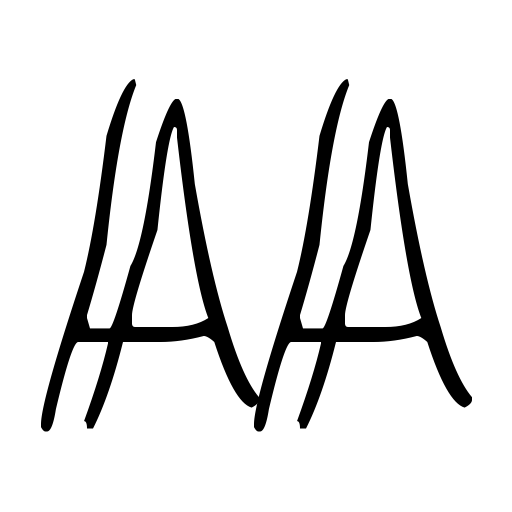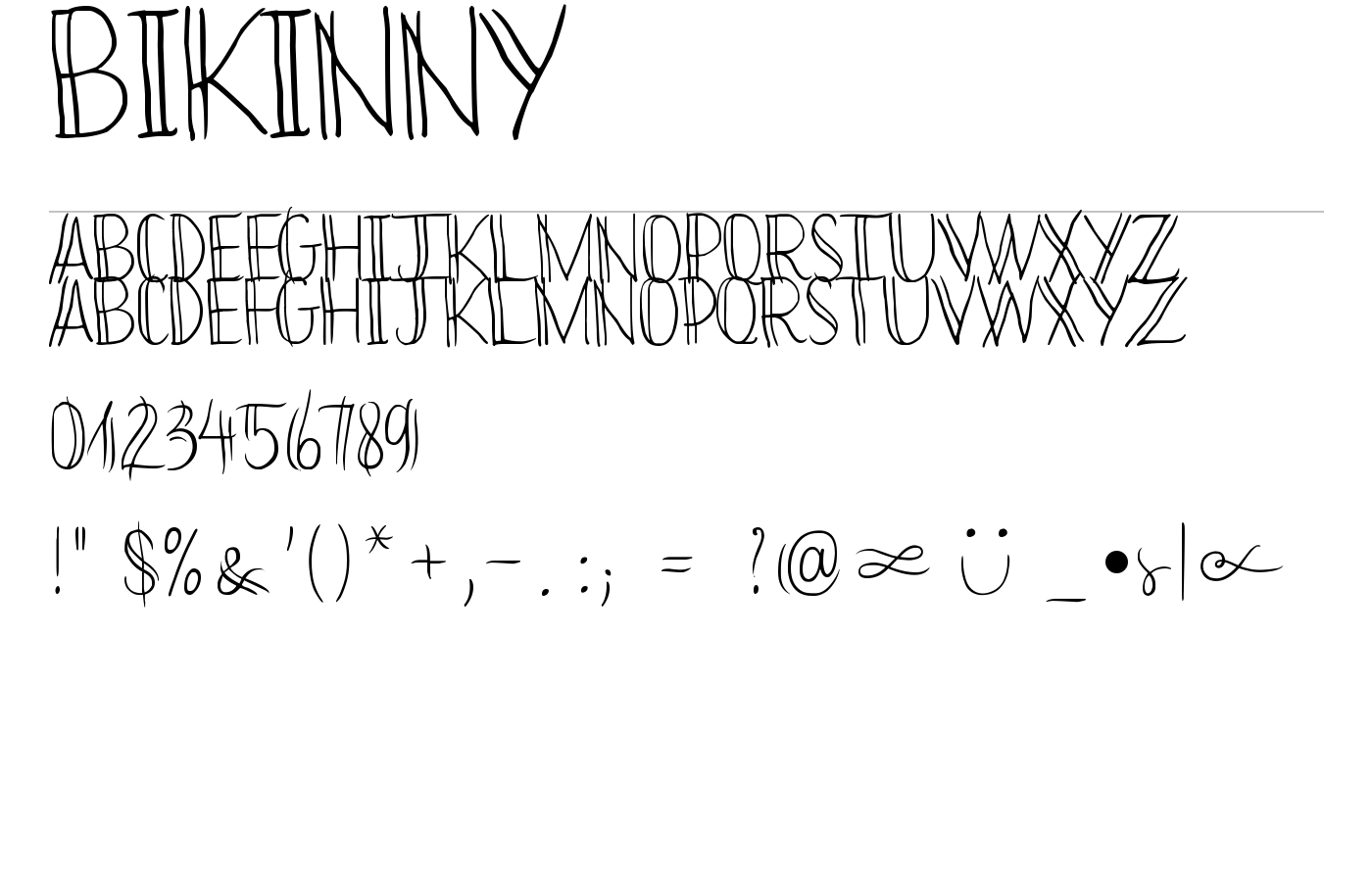
Bikinny is a quirky, hand-drawn sans serif font with a tall, narrow structure and delicate, irregular strokes that give it a playful, whimsical character. Its thin lines and unique letterforms make it ideal for creative and informal designs, such as invitations, posters, and branding that aim for a fun, artistic vibe. This font works best in display uses where its distinctive personality can stand out and add a charming, casual feel.
Bikinny Font
About Bikinny Font
| Font family | Bikinny Font |
| Designer | Le Thi Thu Huong |